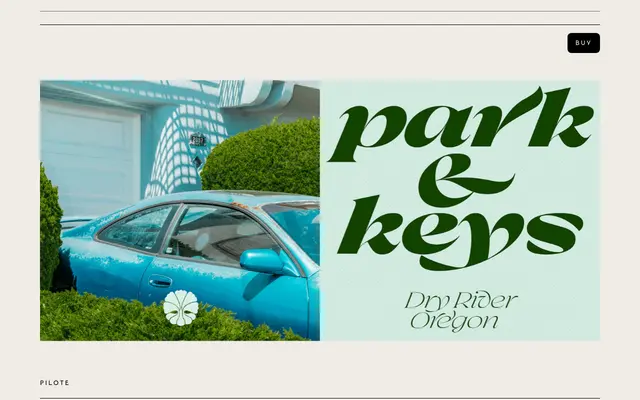
Pilote
VJ Type · Jérémy Schneider · 2025
A high-contrast display serif in ten styles, with expressive swash italics and a generous glyph set aimed squarely at fashion editorial.
Designed by Jérémy Schneider and released in 2025, the family runs from Light to Black with matching italics, each roman carrying alternates and ligatures while the italics add a full set of swash characters. Angular pointed terminals meet smooth diagonal transitions, giving the design a sharp but comfortable rhythm across large settings. The glyph set extends to 77 symbols and 18 stylised arrows, with broad Latin language coverage across more than 40 languages.
A high-contrast extended serif designed explicitly for display use, with angular pointed terminals, expressive swash italics and a fashion-editorial sensibility that places it firmly outside text serif territory.